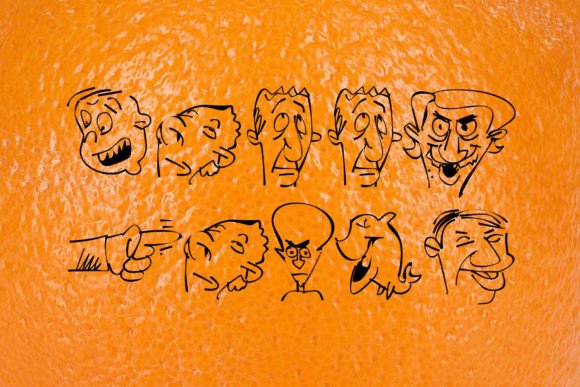
Sappy Faces: A Quirky Dingbats Font
If you're looking for a way to add some personality and playfulness to your design projects, Sappy Faces might just be the font you need. This unique dingbats font features a collection of silly and expressive characters that can bring a lighthearted touch to any visual work. Whether you're designing a logo, creating social media content, or working on a personal project, Sappy Faces offers a fun and original way to stand out.
What Is Sappy Faces?
Sappy Faces is more than just a fontβit's a creative tool that allows users to express emotions and ideas in a whimsical way. Unlike traditional fonts that focus on letters and numbers, Sappy Faces uses symbols and images to convey meaning. Each character is designed to look like a face, often with exaggerated expressions that evoke humor, surprise, or affection. This makes it ideal for projects that aim to engage viewers with a sense of fun and charm.
Why Different Audiences Care About Sappy Faces
The appeal of Sappy Faces varies depending on who is using it and what they're trying to achieve. For beginners, it can be an easy way to experiment with visual storytelling without needing advanced design skills. For professionals, it may offer a fresh approach to branding or marketing materials that need to feel approachable and relatable. Educators might find it useful for creating engaging lesson plans or classroom materials that capture students' attention. Business owners could use it to add a unique touch to their brand identity, while hobbyists might enjoy incorporating it into personal projects for fun.
How Beginners Might Use Sappy Faces
For those new to design, Sappy Faces can be a great starting point for learning how to incorporate visual elements into their work. It doesn't require a deep understanding of typography or graphic design principles, making it accessible for anyone who wants to create something visually interesting. Beginners might use it to add a playful element to a poster, a greeting card, or even a social media post. The simplicity of the font allows them to focus on creativity rather than technical details.
How Professionals Might Evaluate Sappy Faces
Experienced designers and marketers may approach Sappy Faces with a different set of priorities. They might consider factors such as scalability, compatibility with other design tools, and how well the font integrates into existing brand guidelines. While the font is quirky, professionals may also assess whether it aligns with their target audience's expectations. For example, a corporate brand might not want to use Sappy Faces if it doesn't match their desired tone, but a creative agency might see it as a valuable asset for client projects that require a more casual or humorous style.
How Educators Can Benefit From Sappy Faces
Teachers and educators can use Sappy Faces to make learning more engaging, especially for younger students. The expressive characters can help illustrate concepts in a way that's both fun and memorable. For instance, a teacher might use Sappy Faces in a presentation about emotions or in a worksheet that encourages students to describe feelings through images. This type of font can also be useful in special education settings, where visual aids are often more effective than text alone.
How Business Owners Might Leverage Sappy Faces
Small business owners and entrepreneurs looking to build a unique brand identity may find Sappy Faces appealing for its ability to convey personality. It can be used in logos, packaging, or promotional materials to create a distinctive look that sets their business apart. However, business owners should also consider the context in which the font will be used. While it works well for casual or creative industries, it may not be suitable for more formal or traditional businesses. The key is to ensure that the font supports the overall message and image of the brand.
How Hobbyists and Consumers Might Enjoy Sappy Faces
Hobbyists and consumers who enjoy creative projects may appreciate Sappy Faces for its ability to add a personal touch to handmade items, digital art, or DIY crafts. It can be used in everything from custom t-shirts to personalized stationery, allowing individuals to express their personality in a unique way. For consumers, it's also a fun way to discover new fonts and explore how they can enhance their own creative output, whether they're designing for personal enjoyment or sharing their work online.
Practical Examples of Sappy Faces in Action
Imagine a children's book author using Sappy Faces to create illustrated characters that bring the story to life. Or a social media manager using it to design eye-catching posts that stand out in a crowded feed. A wedding planner might use it to add a playful element to invitations or signage. These examples show how versatile the font can be when used thoughtfully and appropriately.
Whether you're a beginner experimenting with design or a professional seeking a unique visual element, Sappy Faces offers a way to add character and creativity to your work. Its quirky nature makes it ideal for projects that benefit from a lighthearted or humorous tone, but it's important to consider how it fits with your goals and audience. By understanding the different ways people might use or evaluate this font, you can determine if it's the right choice for your next project.